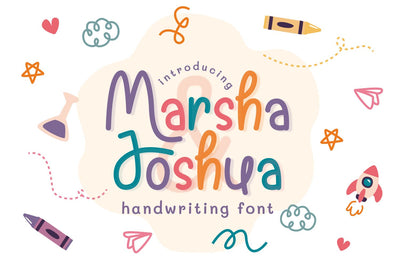
Marsha Joshua
Introducing Marsha Joshua Font by Tlatoustype
Marsha Joshua is a Modern Handwritten Script Font. Marsha Joshua is perfect for book cover, product packaging, branding project, megazine, social media, wedding, or just used to express words above the background.This font includes TTF and OTF, Marsha Joshua also multilingual support.